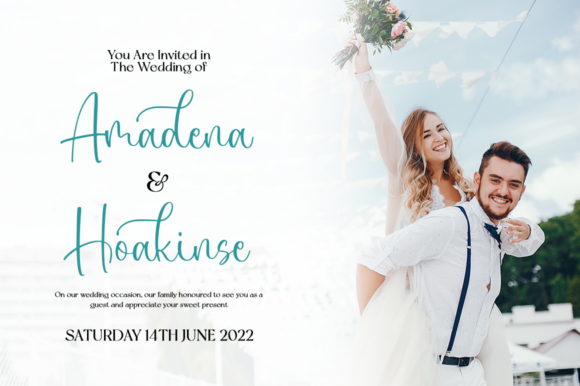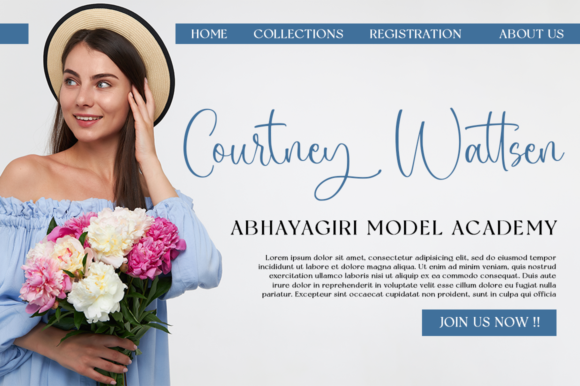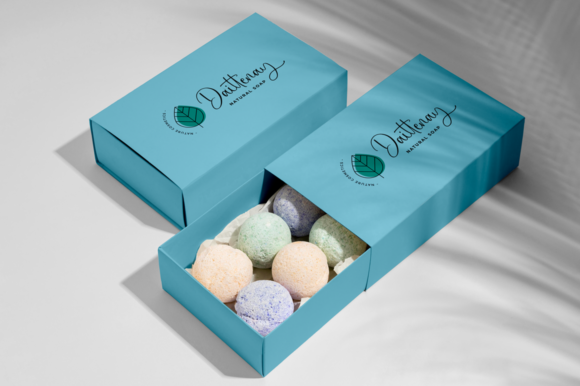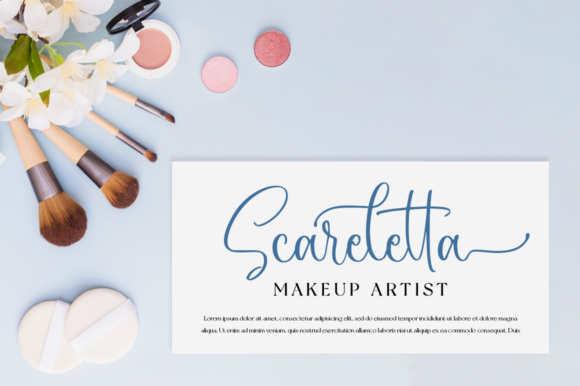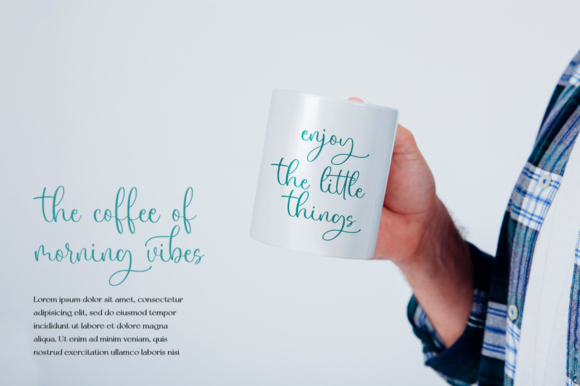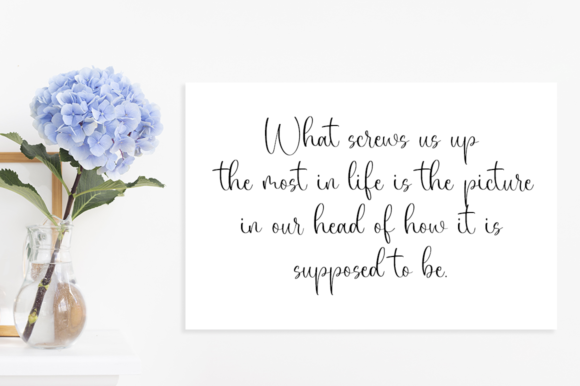
Baby Honey Font: Add a Touch of Elegance to Your Designs
Are you looking for a beautiful and refreshing script font to elevate your designs? Look no further than Baby Honey Font! This lovely and delicate font exudes elegance and class, making it perfect for designers and crafters who want to add a touch of sophistication to their work.
What Makes Baby Honey Font Special?
Baby Honey Font is a stunning script font that features a unique and elegant design. Its delicate lines and curves make it perfect for creating beautiful and eye-catching designs. Whether you’re working on a wedding invitation, a branding project, or a craft project, Baby Honey Font is sure to impress.
One of the best things about Baby Honey Font is that it’s PUA (Private Use Area) encoded. This means that you can access all of the glyphs and swashes with ease, giving you even more creative freedom to customize your designs. With PUA encoding, you can easily access the font’s built-in features, such as:
- Glyphs: alternative characters and ligatures to add variety to your text
- Swashes: decorative flourishes to add a touch of elegance to your design
- Stylistic alternates: alternative characters to give your text a unique look
Baby Honey Font is perfect for designers and crafters who want to add a touch of elegance and sophistication to their work. Whether you’re creating:
- Branding and packaging designs
- Craft projects, such as cards and scrapbooking
- Digital products, such as ebooks and printables
Baby Honey Font is sure to be a great addition to your design toolkit.
Why Choose Baby Honey Font?
So why choose Baby Honey Font over other script fonts? Here are just a few reasons:
- Unique and elegant design
- Perfect for a variety of design projects
- Easy to read and beautiful to look at
Tips for Using Baby Honey Font
Here are a few tips for using Baby Honey Font in your designs:
- Use it as a headline font to add a touch of elegance to your design
- Pair it with a simple sans-serif font for a beautiful contrast
- Use the glyphs and swashes to add a personal touch to your design